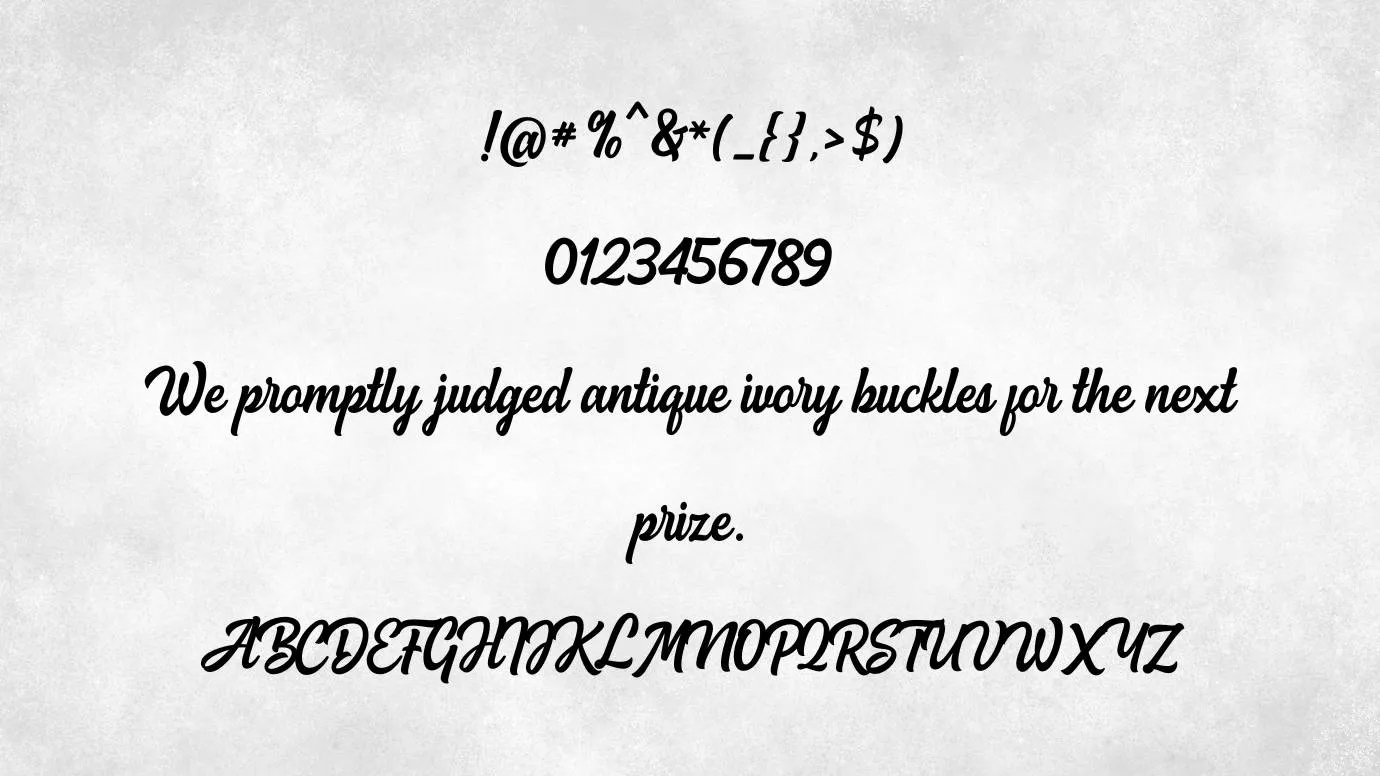
An innovative font called Space age is based on the “Mission: SPACE” logotype at Epcot. Version 1.0 includes capital letters, numbers, the majority of punctuation, and a few extended characters. Another version of SPACE AGE that is experimental and features some automatic ligatures is called Open Type.
View of Spellkid Font
Here is a photo of this lovely font. Its originality lends your project a lovely appearance.
This set includes numerous distinctive ligatures and alternates, as well as fancy styles for all uppercase and some lowercase characters. This typeface is distinctive and attractive, meeting the demands of designers. Therefore, this is ideal for branding and logo design. This font is very close to the scriptina font.
This font can be used for a variety of documentation tasks, including writing content for long-form articles and other related projects. Using its free online generator tool facility, this typeface is ideal for turning your simple text into graphics.
| Name | Spellkid Font |
| Designer | Nug's Project |
Is Spellkid a good font?
Yes, this font style is using by number of designers in multiple designs. So, yes this font is an amazing font.
What other fonts resemble Spellkid fonts?
The most alternative typeface to this unusual style is Handesa Mornites Font. The designer can also pair this typeface with this font.